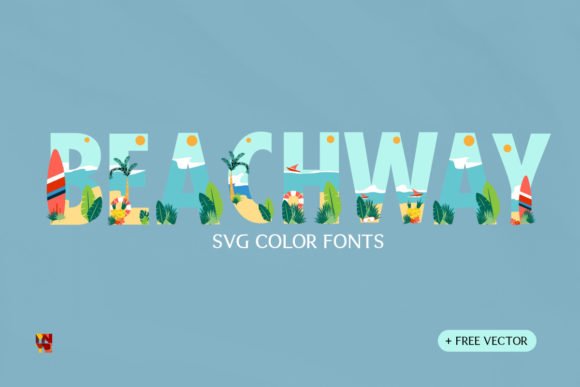
The Perfect Font for Your Summer Vibes
As the sun sets over the ocean, you can almost hear the sound of seagulls and the smell of saltwater fills the air. It’s the perfect time to plan your next creative project, and what better way to capture the essence of summer than with the Beachway Font? This artistic color display font is designed to bring a fresh and happy holiday tone to your work, making it perfect for vacation, summer, or holiday-themed posters, t-shirts, and other creative projects.
The Beachway Font is a game-changer for designers looking to add some personality to their work. With its rich illustration and vibrant color palette, it’s sure to make your project stand out from the crowd. Whether you’re working on a campaign for a beach resort or designing a t-shirt for a summer concert, this font is the perfect addition to your creative toolkit.
Beachway Font Key Features
- Font Family: Beachway is a modern sans-serif font designed for digital use.
- Character Set: Supports a wide range of languages, including Latin, Cyrillic, and Greek alphabets, making it suitable for global applications.
- Size: Beachway is available in 5 weights (Light, Regular, Medium, Bold, Black) to cater to various design needs.
- Resolution: Optimized for high-resolution displays, Beachway maintains its crispness and readability at resolutions up to 300 DPI.
- Unique Characteristics: Beachway’s distinctive design features include rounded corners, subtle curvature, and a balanced x-height, resulting in a clean and approachable aesthetic.
Beachway Font Review
Overall, I think Beachway Font is a solid choice for any project that requires a relaxed, beach-inspired vibe. ✨ Here are a few things that really work well:
- Unique and varied letterforms that evoke the feeling of ocean waves and sandy shores
- Works well for titles and headings, with a clear distinction from body text
- Looks great in various sizes, from tiny to large
- Good legibility, even at small font sizes
However, I do have a few concerns. ⚠️ Here are some limitations to consider:
- Some letters, like ‘k’ and ‘q’, can be a bit tricky to read, especially at small sizes
- Not as versatile for body text, as it can feel a bit too casual and laid-back
- Might not be the best choice for projects that require a lot of emphasis or high contrast
Overall, I’d give Beachway Font 4 out of 5 stars. It’s a great choice for projects that need a beachy feel, but it’s not a one-size-fits-all solution. With some careful consideration of its limitations, it can be a great addition to your design toolkit.
Getting the Most Out of Beachway Font
To get the most out of Beachway Font, use it for:
- Water-inspired designs, such as beach-themed invitations or posters.
- Coastal-inspired branding, such as logos or business cards.
- Summer-themed graphics, such as social media posts or infographics.
Alternatives to Beachway Font
Playfair Display is a luxurious serif font perfect for high-end branding, invitations, and editorial content. It features elegant connections and a sense of grandeur, making it ideal for special occasions or premium products.
Compared to Beachway Font, Playfair Display has a more formal and traditional feel, while Beachway Font has a more casual and beachy vibe. Use Playfair Display when you want to convey sophistication and elegance.
Pacifico is a modern script font designed to evoke a sense of relaxation and calmness. It’s perfect for branding, logos, and typography that requires a friendly and approachable feel.
Pacifico has a more relaxed and casual feel compared to Beachway Font, but both fonts share a similar laid-back vibe. Use Pacifico when you want to create a sense of calmness and serenity.
Great Vibes is a modern script font designed to convey a sense of happiness and playfulness. It’s perfect for branding, logos, and typography that requires a fun and energetic feel.